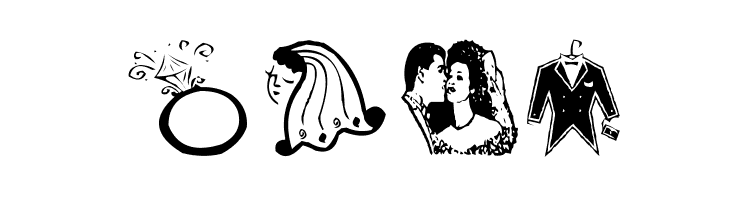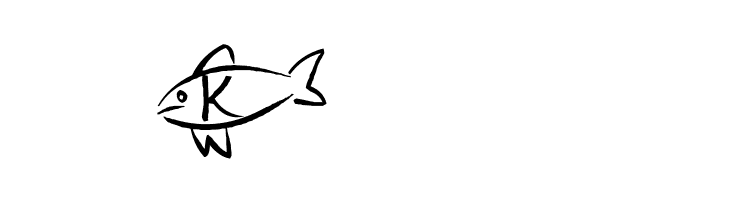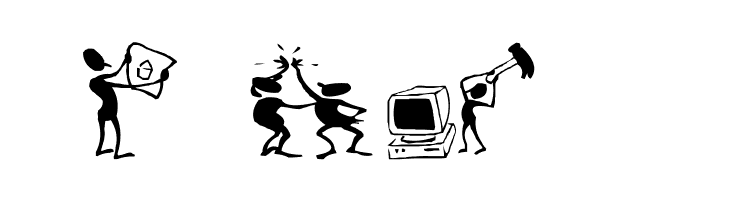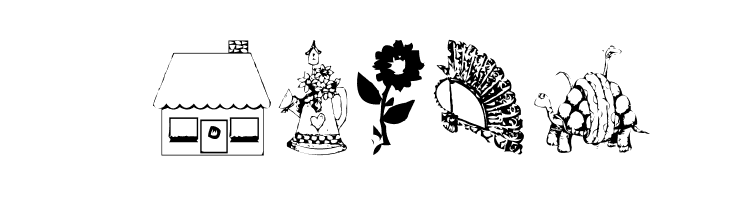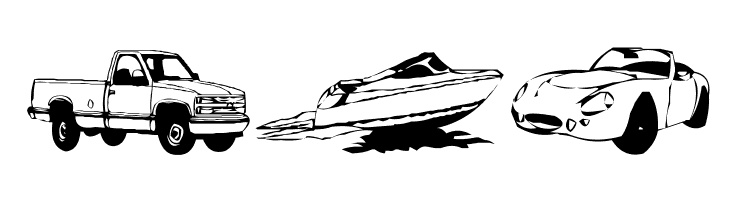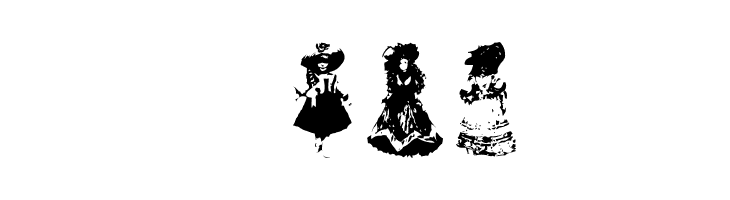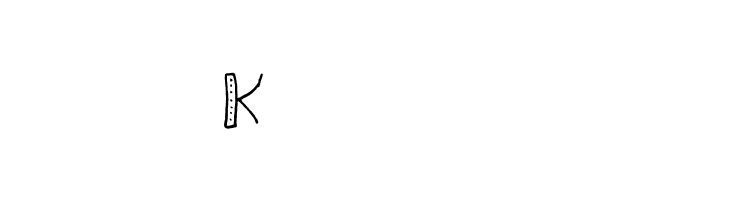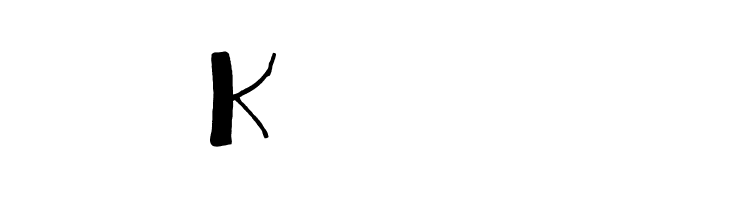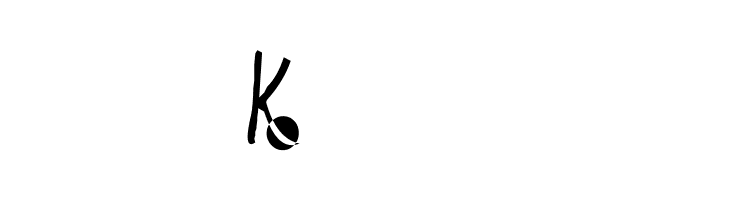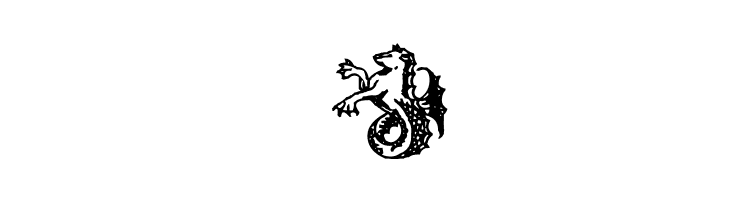
( Fonts by Adult Ramblings - Anastacia E. Zittel - Personal-use only. For commercial use please contact owner. ) An elegant and artistic script font with flowing, intricate letterforms and decorative flourishes. Download 69 Downloads@WebFont
( Fonts by Adult Ramblings - Anastacia E. Zittel - Personal-use only. For commercial use please contact owner. ) A decorative font with a lighthouse motif integrated into each letter, ideal for nautical themes. Download 62 Downloads@WebFont
( Fonts by Adult Ramblings - Anastacia E. Zittel - Personal-use only. For commercial use please contact owner. ) A playful, handwritten font with whimsical and irregular strokes. Download 49 Downloads@WebFont
( Fonts by Adult Ramblings - Anastacia E. Zittel - Personal-use only. For commercial use please contact owner. ) A playful font with characters inside snowman faces, ideal for festive designs. Download 68 Downloads@WebFont
( Fonts by Adult Ramblings - Anastacia E. Zittel - Personal-use only. For commercial use please contact owner. ) A whimsical, spooky-themed font with bat motifs and decorative elements. Download 107 Downloads@WebFont
( Fonts by Adult Ramblings - Anastacia E. Zittel - Personal-use only. For commercial use please contact owner. ) A modern, playful font with bold characters and high contrast. Download 67 Downloads@WebFont
( Fonts by Adult Ramblings - Anastacia E. Zittel - Personal-use only. For commercial use please contact owner. ) A decorative font with bold letters integrated with sunflower illustrations. Download 199 Downloads@WebFont
( Fonts by Adult Ramblings - Anastacia E. Zittel - Personal-use only. For commercial use please contact owner. ) A playful, hand-drawn font with whimsical, cartoonish elements. Download 75 Downloads@WebFont
( Fonts by Adult Ramblings - Anastacia E. Zittel - Personal-use only. For commercial use please contact owner. ) A whimsical font with characters inside fish shapes, perfect for playful designs. Download 274 Downloads@WebFont
( Fonts by Adult Ramblings - Anastacia E. Zittel - Personal-use only. For commercial use please contact owner. ) Whimsical display font using doll silhouettes as characters. Download 421 Downloads@WebFont
( Fonts by Adult Ramblings - Anastacia E. Zittel - Personal-use only. For commercial use please contact owner. ) A cursive, handwritten-style font with fluid, connected letters and dynamic stroke variations. Download 108 Downloads@WebFont
( Fonts by Adult Ramblings - Anastacia E. Zittel - Personal-use only. For commercial use please contact owner. ) A pictogram font featuring various transportation vehicles. Download 638 Downloads@WebFont
( Fonts by Adult Ramblings - Anastacia E. Zittel - Personal-use only. For commercial use please contact owner. ) A playful, decorative font with pattern-filled, textured letterforms. Download 71 Downloads@WebFont
( Fonts by Adult Ramblings - Anastacia E. Zittel - Personal-use only. For commercial use please contact owner. ) A decorative set of wedding-themed dingbats featuring couples, rings, and celebratory icons. Download 1487 Downloads@WebFont
( Fonts by Adult Ramblings - Anastacia E. Zittel - Personal-use only. For commercial use please contact owner. ) A series of whimsical stick figure illustrations conveying playful actions. Download 634 Downloads@WebFont
( Fonts by Adult Ramblings - Anastacia E. Zittel - Personal-use only. For commercial use please contact owner. ) A decorative dingbat set featuring playful and whimsical illustrations. Download 446 Downloads@WebFont
( Fonts by Adult Ramblings - Anastacia E. Zittel - Personal-use only. For commercial use please contact owner. ) A playful, casual handwritten font with irregular, flowing letterforms. Download 88 Downloads@WebFont
( Fonts by Adult Ramblings - Anastacia E. Zittel - Personal-use only. For commercial use please contact owner. ) A playful, hand-drawn font with bold, sketchy characters. Download 173 Downloads@WebFont
( Fonts by Adult Ramblings - Anastacia E. Zittel - Personal-use only. For commercial use please contact owner. ) A decorative font featuring whimsical bear illustrations for each character. Download 75 Downloads@WebFont
( Fonts by Adult Ramblings - Anastacia E. Zittel - Personal-use only. For commercial use please contact owner. ) A decorative font with characters encased in heart shapes, ideal for romantic themes. Download 120 Downloads@WebFont
( Fonts by Adult Ramblings - Anastacia E. Zittel - Personal-use only. For commercial use please contact owner. ) A playful, hand-drawn font with irregular strokes and whimsical charm. Download 167 Downloads@WebFont
( Fonts by Adult Ramblings - Anastacia E. Zittel - Personal-use only. For commercial use please contact owner. ) Whimsical cat illustrations replace standard alphanumeric characters. Download 54 Downloads@WebFont
( Fonts by Adult Ramblings - Anastacia E. Zittel - Personal-use only. For commercial use please contact owner. ) A bold, artistic font with brush-like strokes and playful circular elements. Download 72 Downloads@WebFont
( Fonts by Adult Ramblings - Anastacia E. Zittel - Personal-use only. For commercial use please contact owner. ) Intricate medieval-themed dingbats with detailed, ornate designs. Download 79 Downloads@WebFont
( Fonts by Adult Ramblings - Anastacia E. Zittel - Personal-use only. For commercial use please contact owner. ) A bold, artistic font with circular elements and dynamic strokes. Download 79 Downloads@WebFont